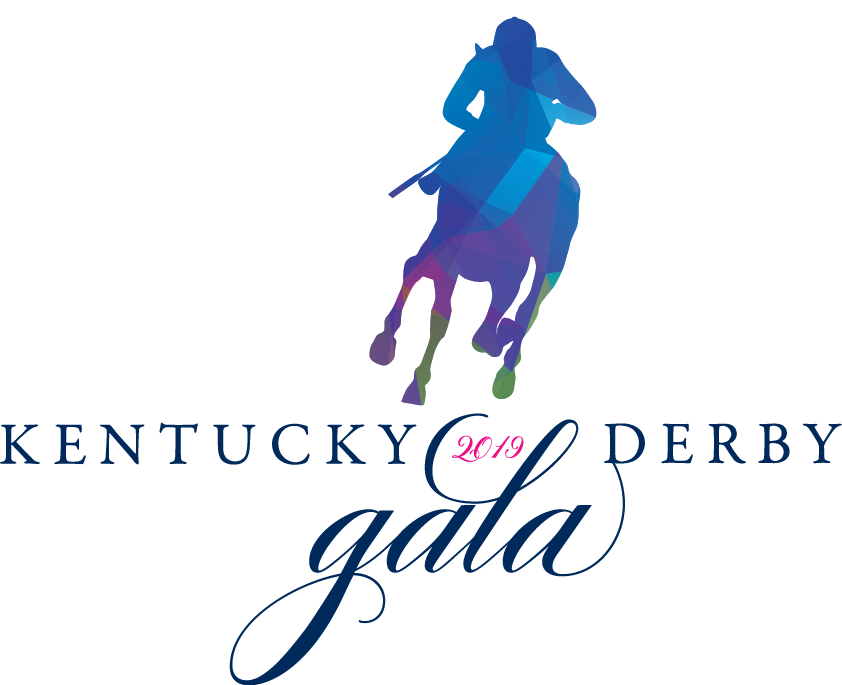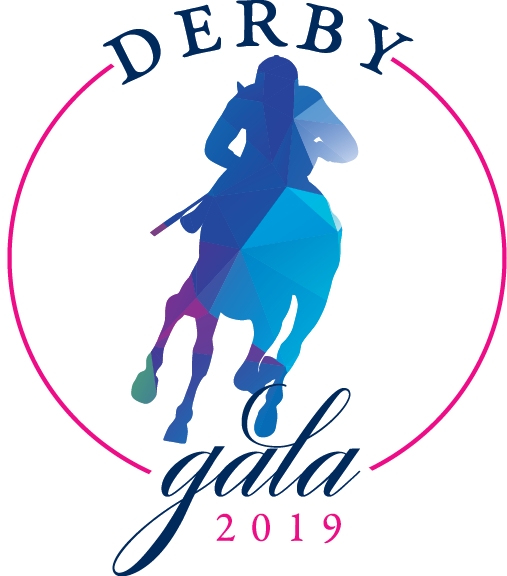
Anyone know the cursive fonts for the words "gala"?
Regardless of which of the myriad formal scripts this might turn out to be, 'cursive' is what they call it in elementary school nee longhand, which is what the little tykes used to call it before 'cursive'. In typography as well as the sign business it's called a 'script', 'cursive' is something else and rather obscure at that.
Damn, leave this place for a couple of years, come back, same old Bob. If you look up the definitions of "SCRIPT" and "CURSIVE" and look at the font sample posted that is closer to a cursive than a script. The words have been maligned for years until "SCRIPT" has become the common name, though used incorrectly. The same holds true for "FONT" and "TYPEFACE".
All that said, I'm not at my design desk but I think that is PF Champion with an alternate glyph for the "l"
No, not PF Champion nor Bickham... etc. and their myriad of alt glyphs.
I dare say this one is a custom creation of whom ever was charged with the task of designing it.